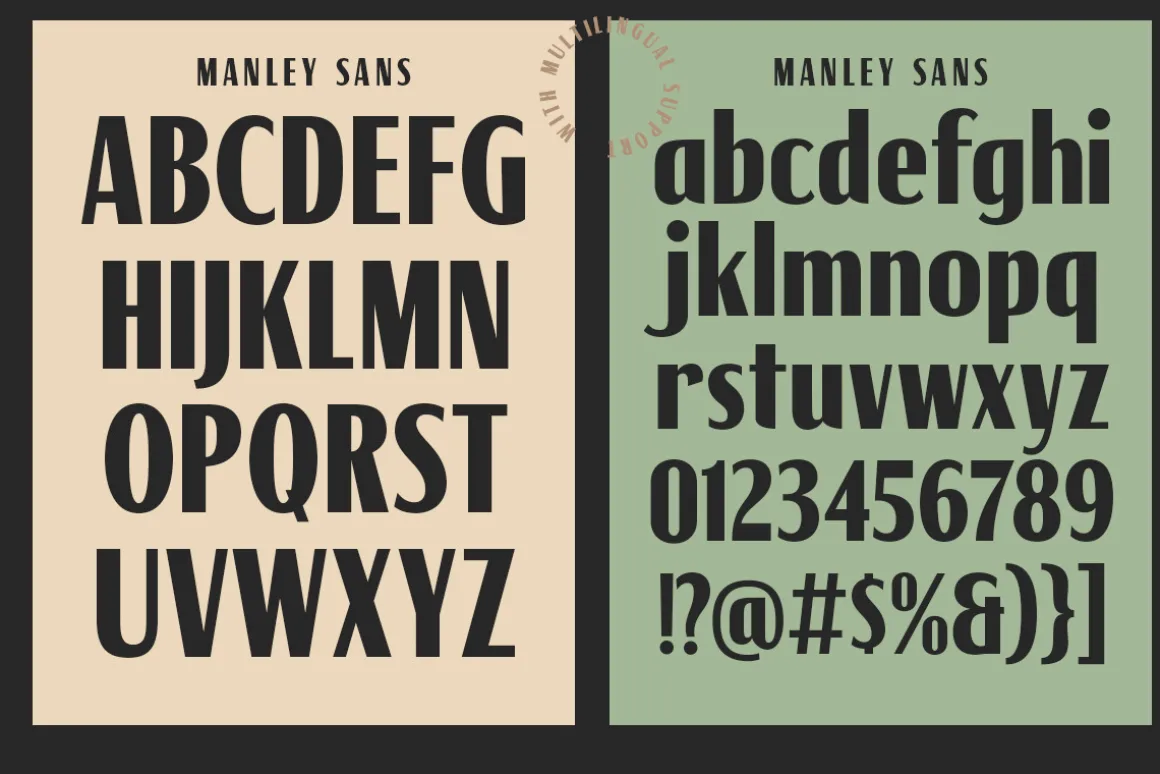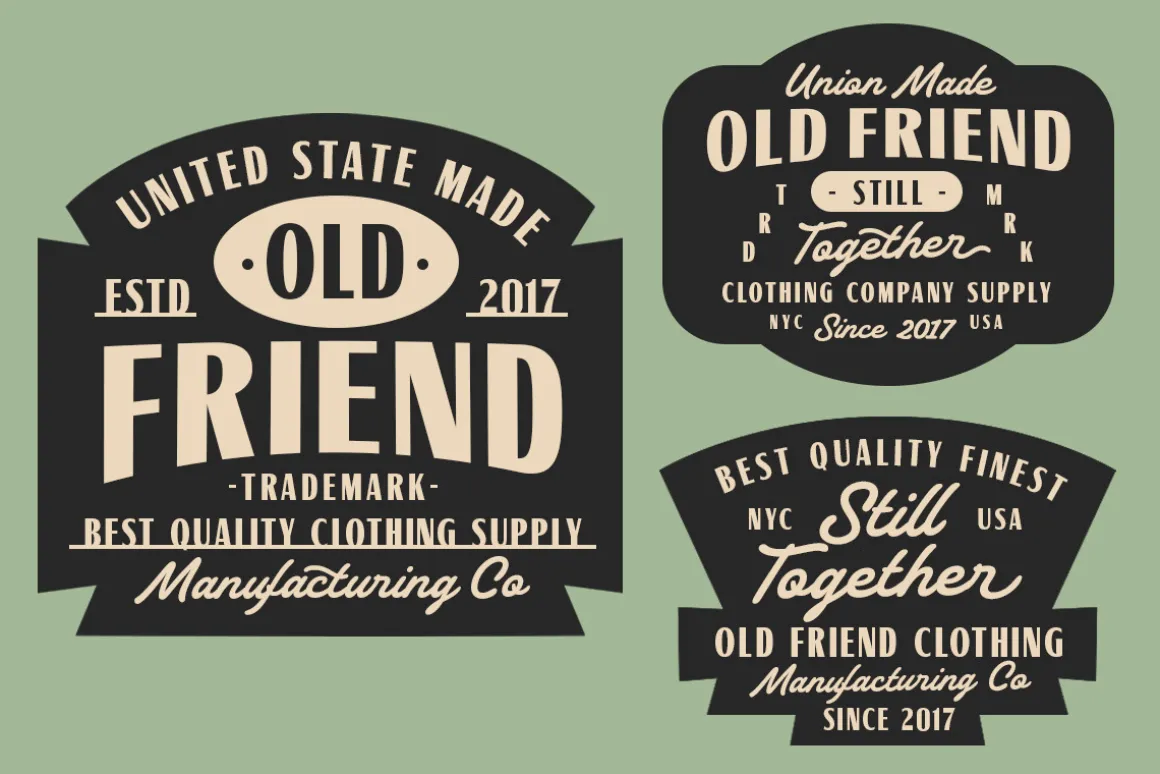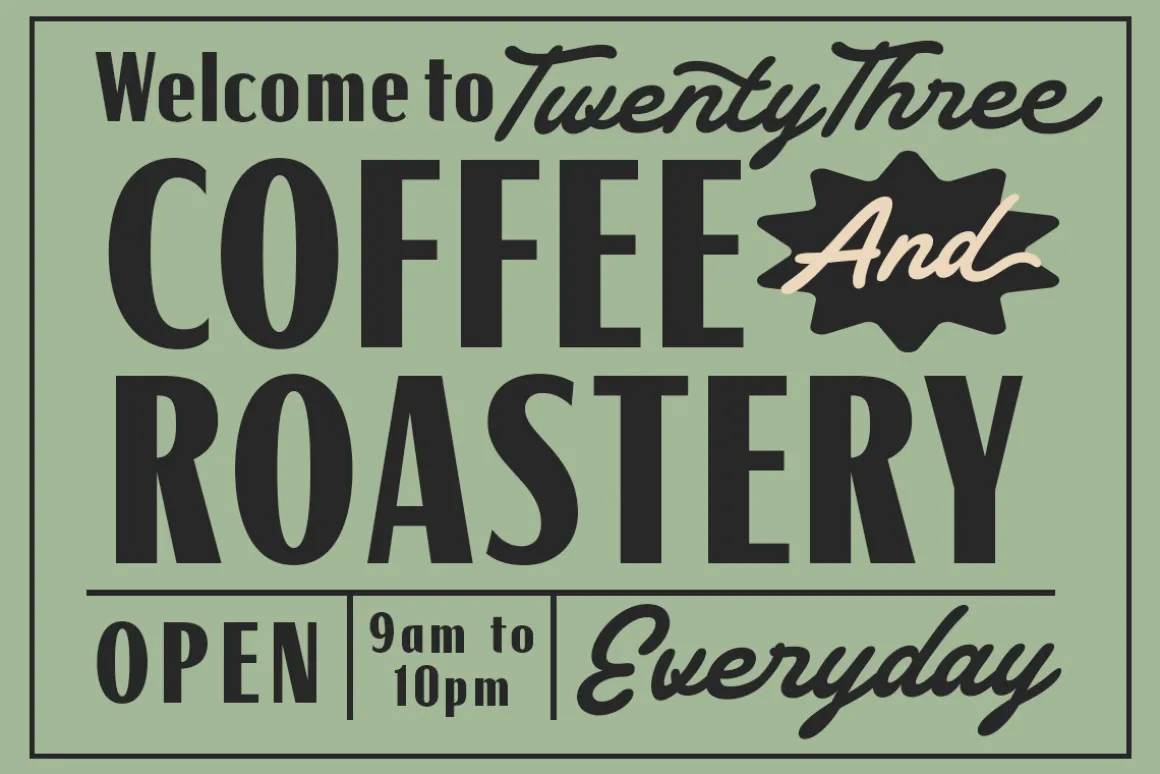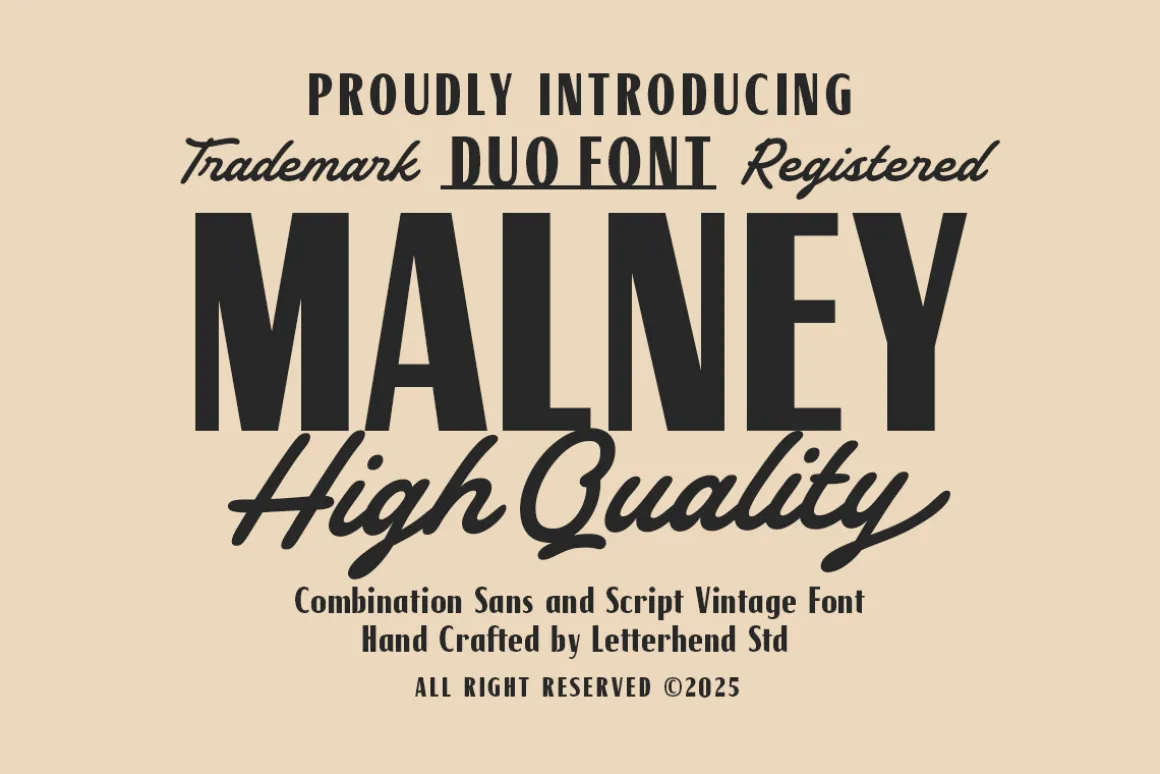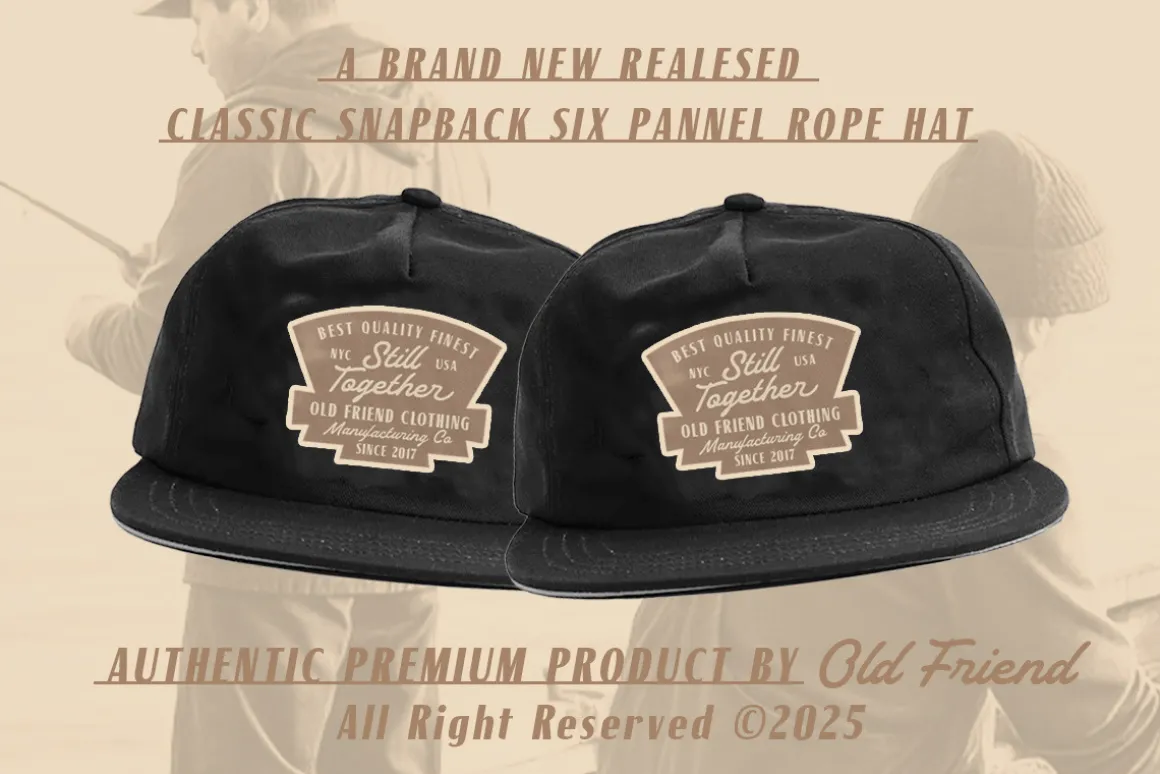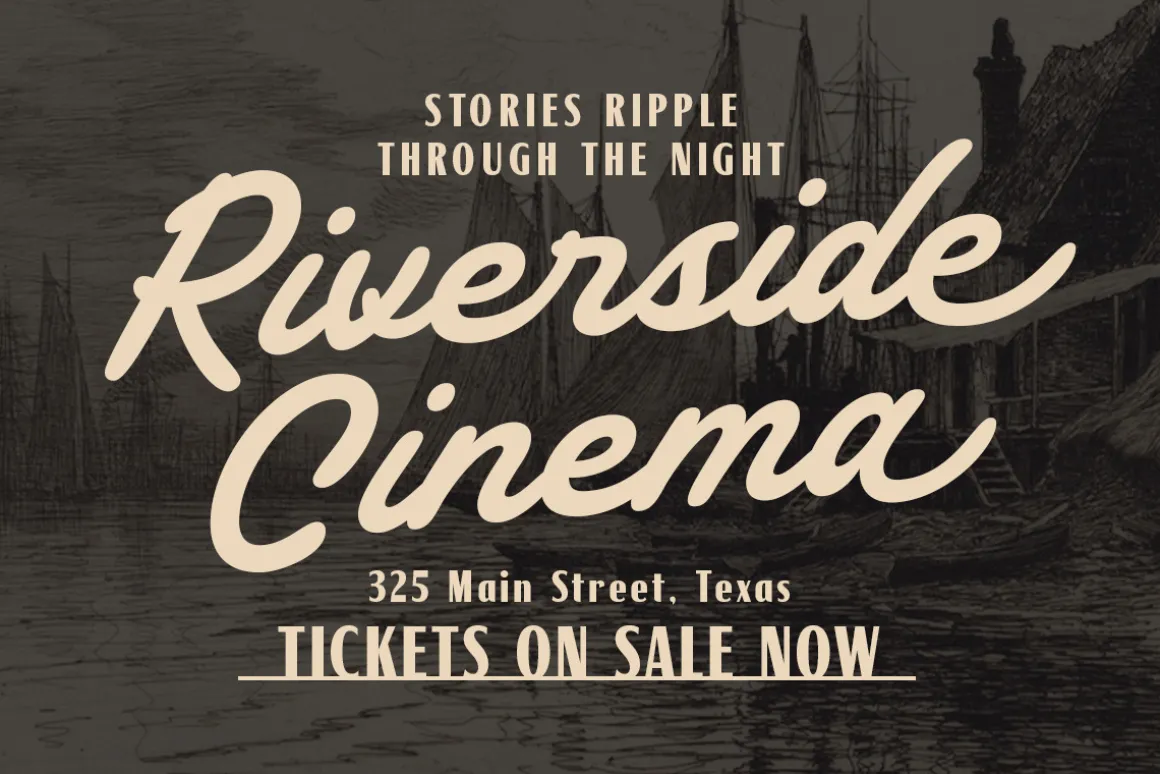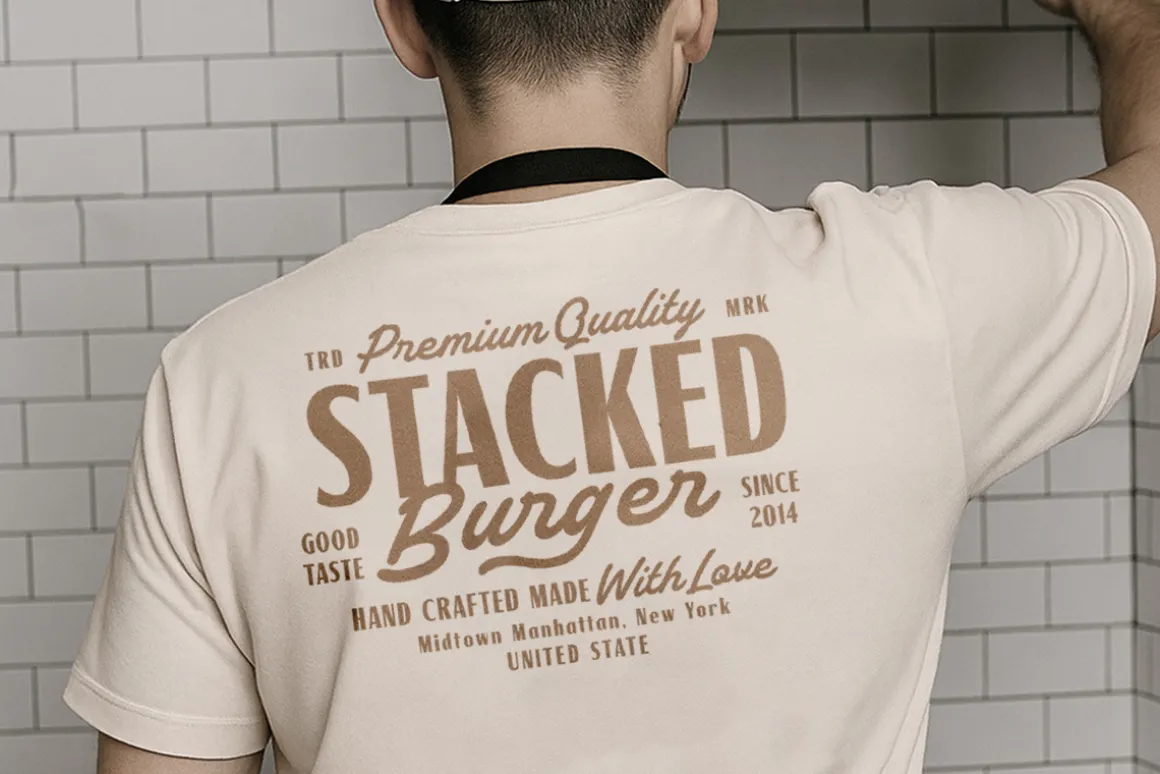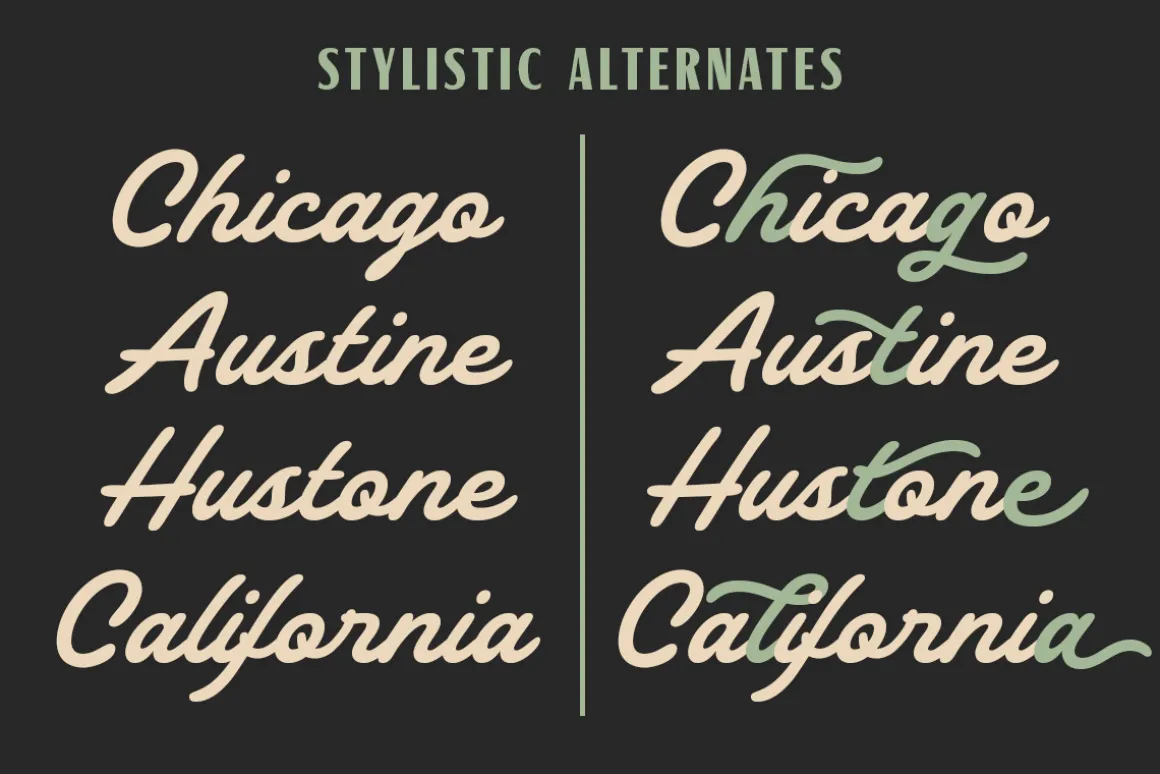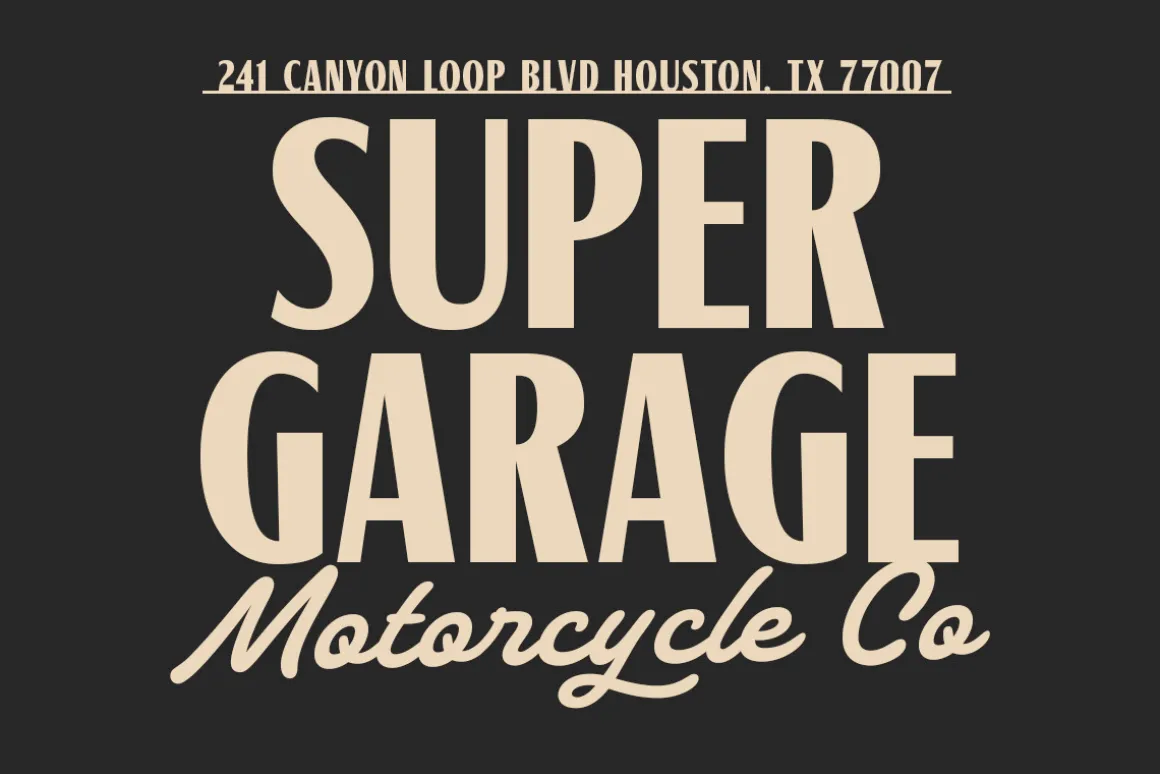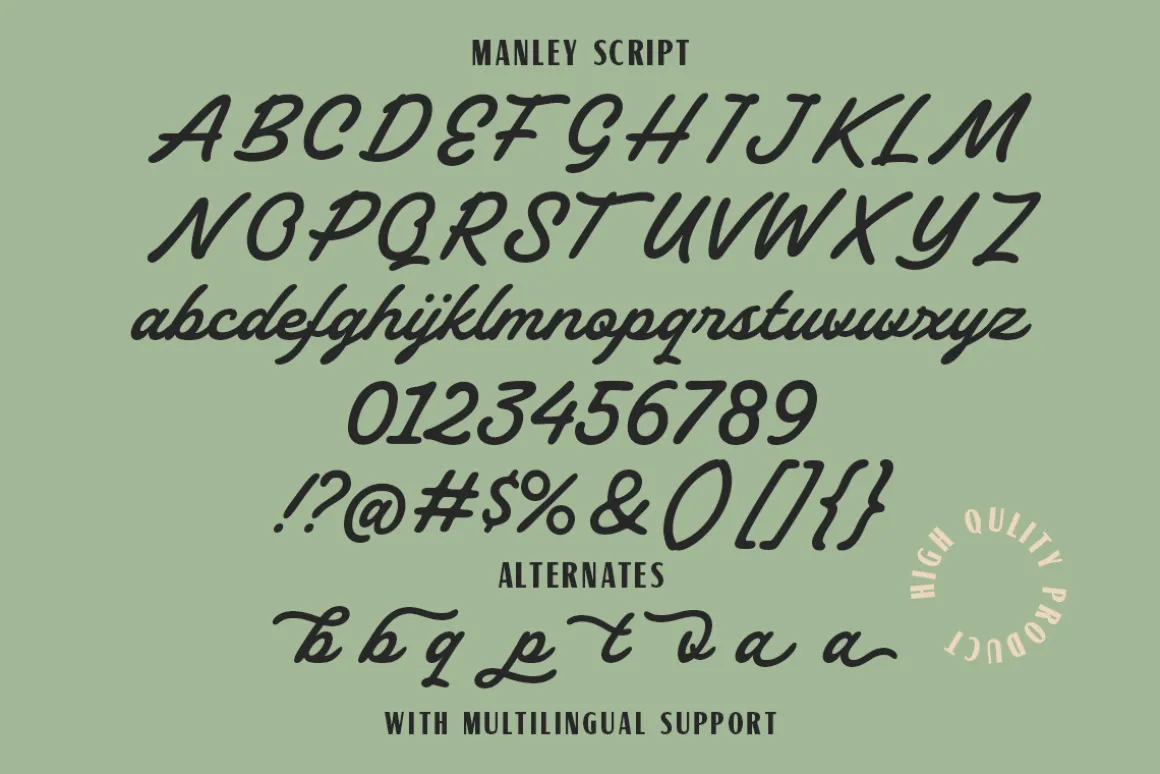
Malney feels lovingly handcrafted, pairing sturdy sans shapes with a script that flows like hand-painted signage. This duo font feels timeless yet stylish, bring a sense of authenticity and human touch—perfect for artisanal branding, vintage goods, and heritage-inspired layouts.
- Uppercase & lowercase
- Numbers and punctuation
- Alternates & Ligatures
- Multilingual Support